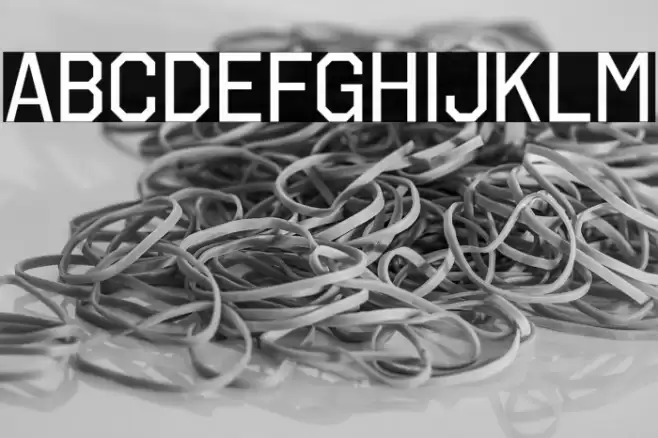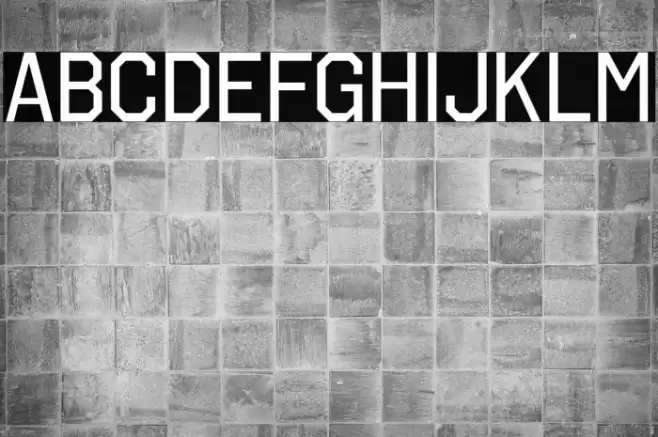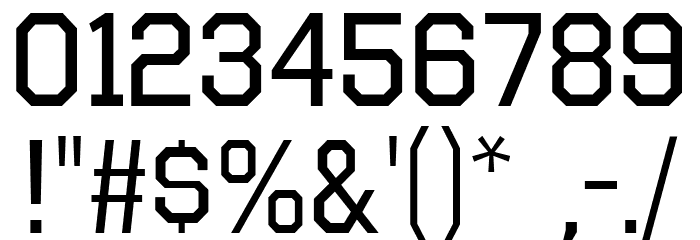
OctinCollegeRg-Regular Font
OctinCollegeRg-Regular Description
This font features a bold, geometric design with a strong, collegiate aesthetic. The characters are constructed with straight lines and sharp angles, giving it a modern and structured appearance. The uppercase letters are uniform in height, while the numerals and special characters maintain the same boldness and clarity. The font's style is reminiscent of athletic or varsity themes, making it ideal for projects that require a strong and impactful visual presence. Its clean lines and consistent weight make it highly legible, even at smaller sizes.
A bold, geometric font with a collegiate and athletic style from Uncategorized fonts.
- Proposed Projects: Ideal for sports team branding, college event posters, athletic apparel design, and any project requiring a strong, impactful typeface.